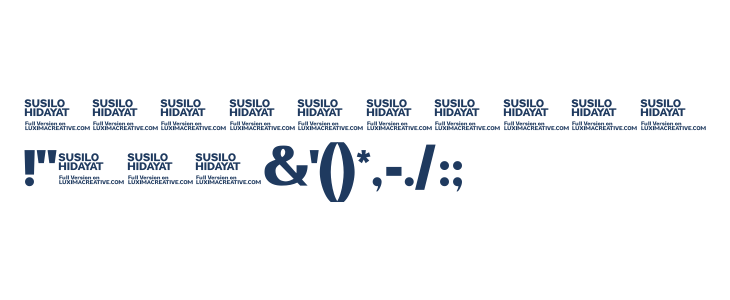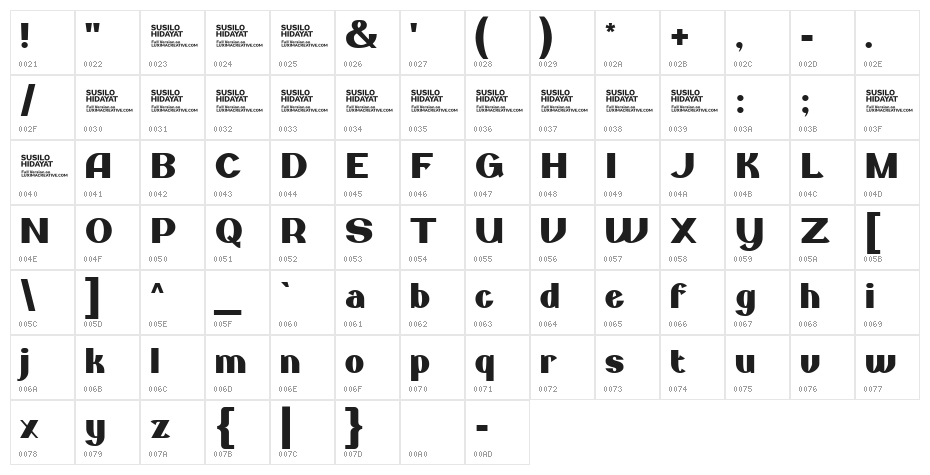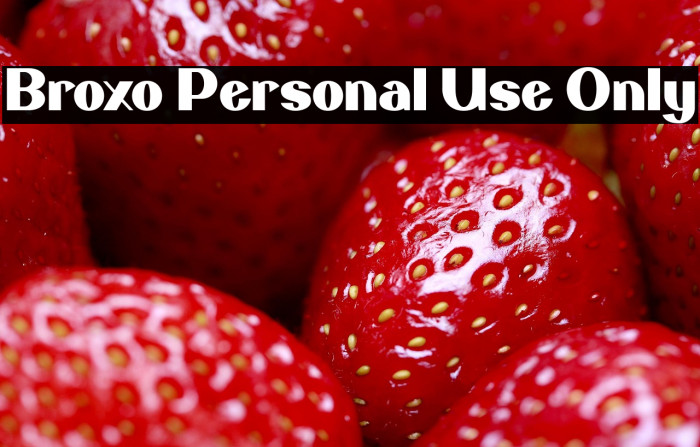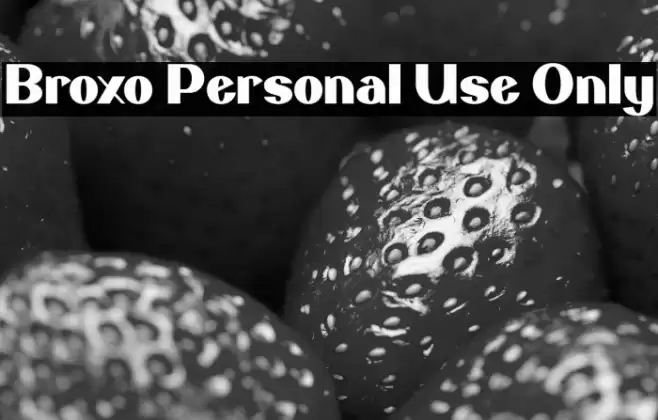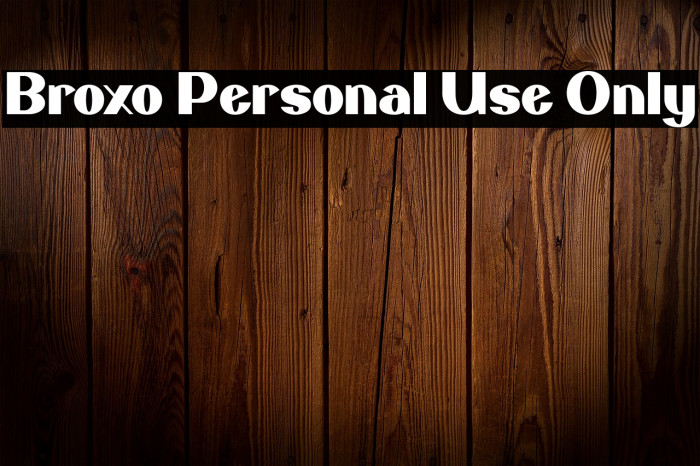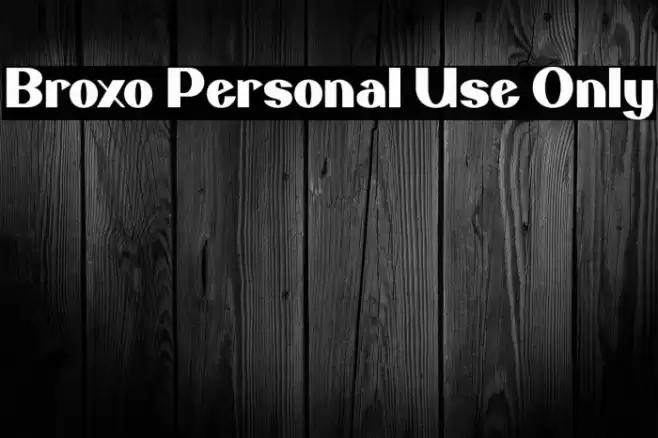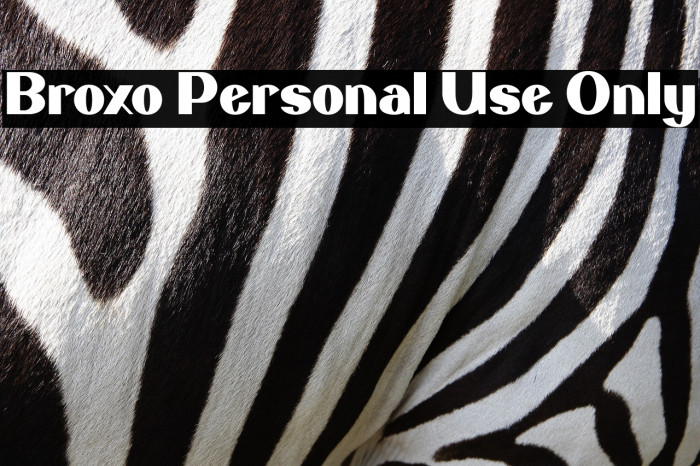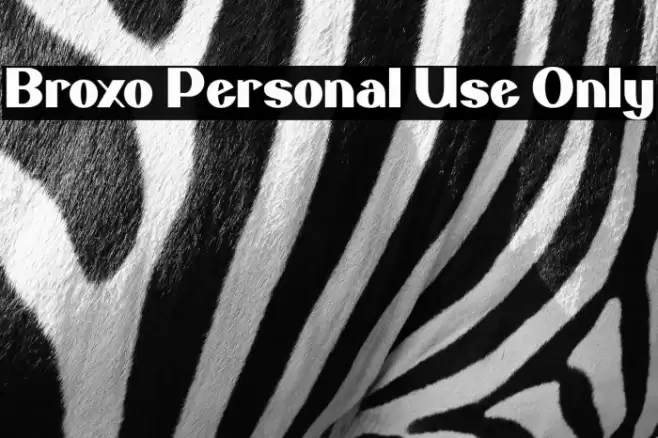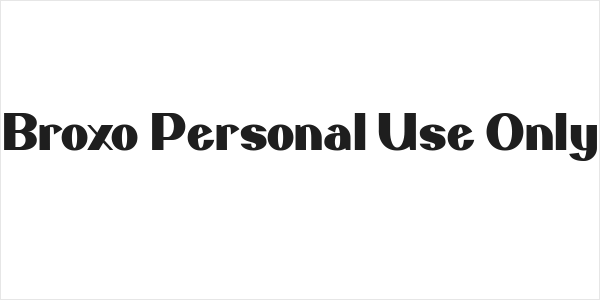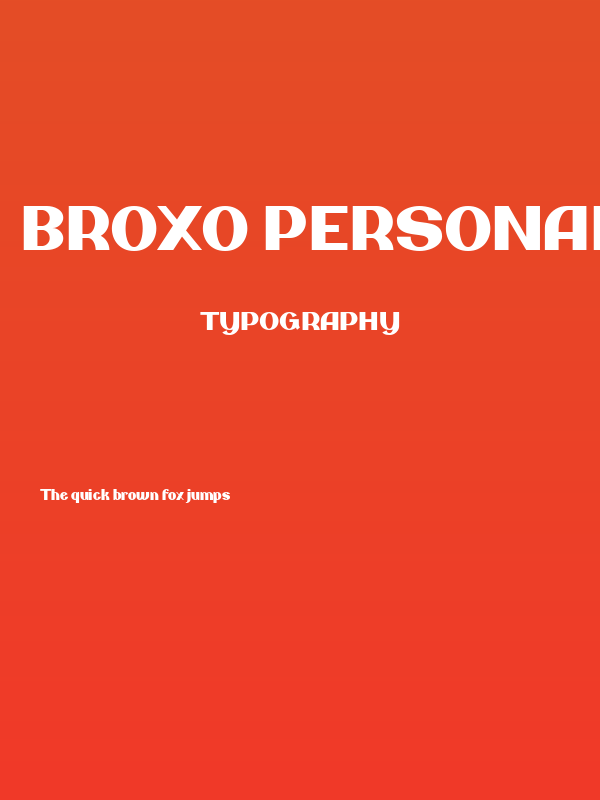
This font features a bold and striking design with thick, uniform strokes that give it a strong presence. The characters are crafted with a modern flair, incorporating subtle curves and sharp angles that add a unique touch to each letter. The uppercase and lowercase letters maintain a consistent style, ensuring readability while providing a distinctive look. The numerals and special characters are designed to complement the alphabet, maintaining the bold and impactful aesthetic. This font is ideal for projects that require a strong visual impact, such as headlines, posters, and branding materials.
| Proposed Projects | Ideal for headlines, posters, branding, and any project needing a strong visual impact. |